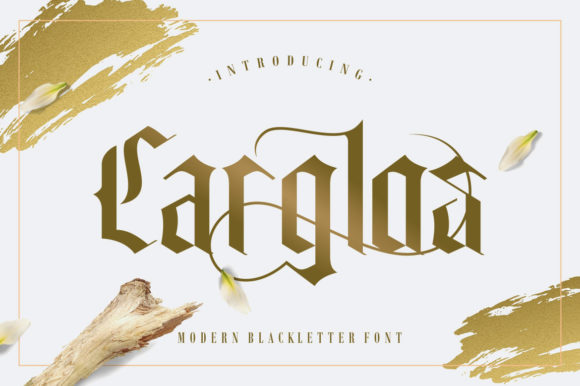
Carglos Font
Font Name : Carglos Font
Author : HansCo
Unleash your creativity with Carglos, the captivating blackletter font family created by HansCo. Immerse yourself in the world of enchanting typography with this charming handwritten font that exudes a warm and inviting vibe.
With its playful swashes and elegant ligatures, Carglos is a font that dances on the page, adding a touch of whimsy and personality to your designs. Whether you're crafting heartfelt invitations, personalizing handmade cards, or creating eye-catching social media posts, Carglos will transform your words into works of art.
For those seeking the perfect Instagram font, Carglos is your muse. Its friendly and casual style will make your posts stand out from the crowd, capturing the attention of your followers and leaving a lasting impression. Let Carglos be your creative companion, helping you express yourself in a way that feels authentic and engaging.
And for the calligraphy enthusiasts among us, Carglos is a dream come true. Its smooth, flowing strokes and graceful curves make it ideal for DIY projects, such as personalized gifts, custom stationery, and heartfelt letters. Turn your creative vision into tangible masterpieces with Carglos as your artistic partner.
Step into the world of Carglos, where imagination meets artistry. Let this font ignite your creativity and transform your designs into captivating expressions of your unique style. Download Carglos today and embark on a journey of artistic discovery, where every word becomes a work of art.